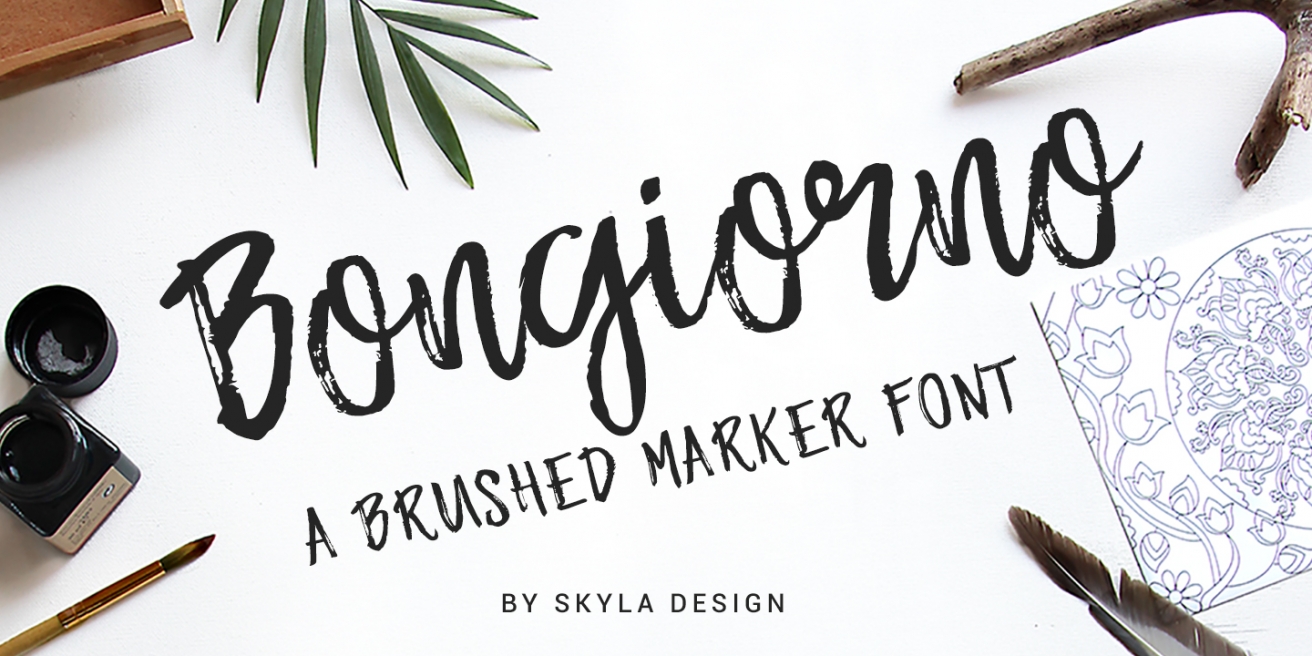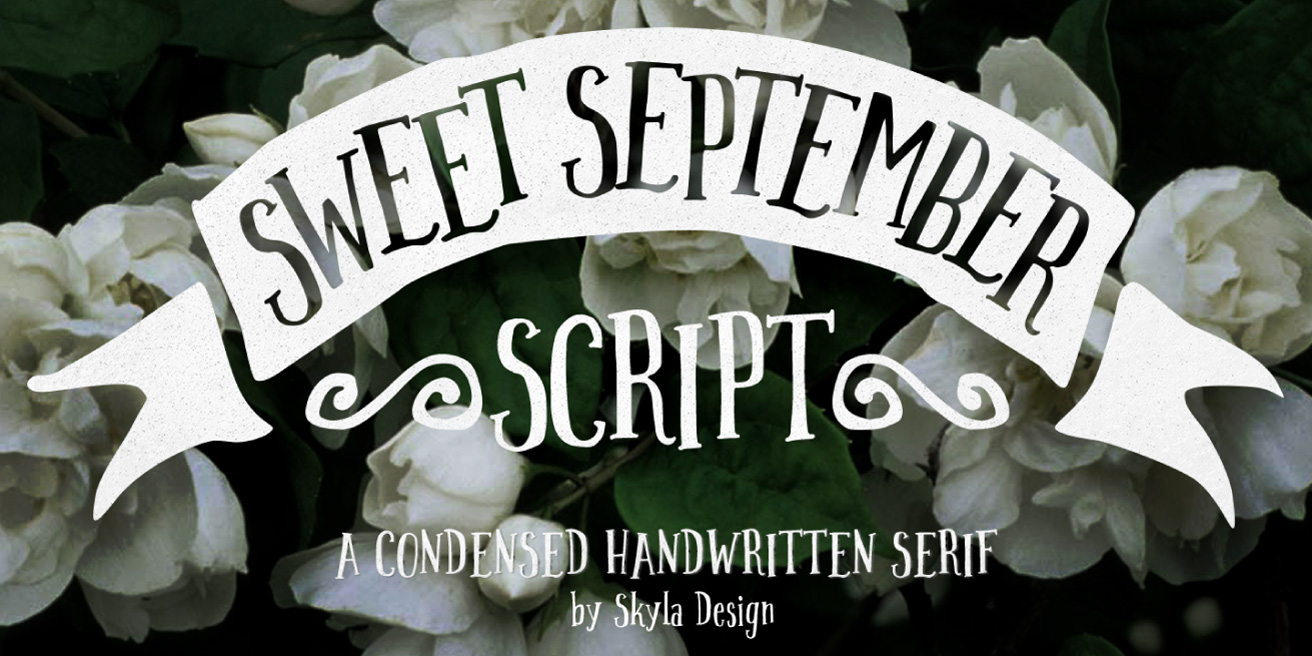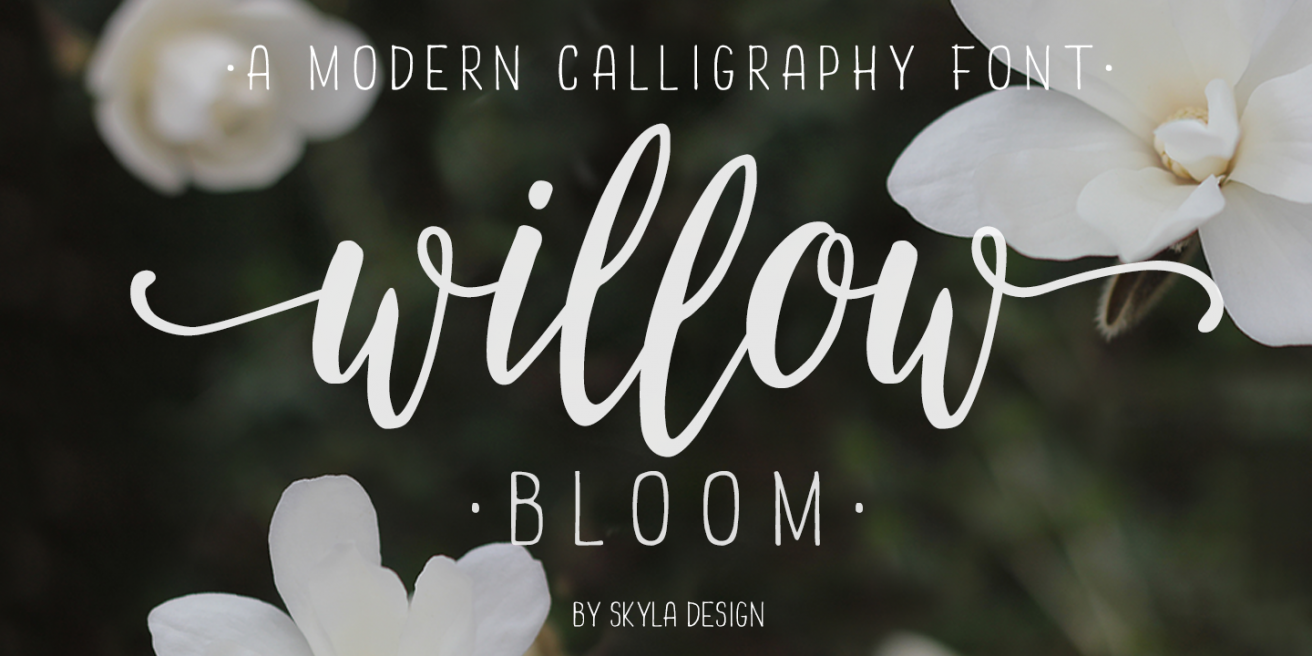
This issue of Fontspring’s Font Faves features four fonts from Skyla Design, one of our newest foundries. Skyla specializes in modern calligraphy and is a natural with a brush (just look at some of her videos on YouTube). We’re happy to welcome her to Fontspring and we think you’ll be happy too after picking up one or more of her great designs.
Bongiorno is a brush script with more texture than the norm, making it stand out and give more of a hand drawn look than many of the neater scripts. Put it anywhere you need to make a statement, it pairs wonderfully with bright colors. |
Sometimes you need that flowing and fun feel that you only get with scripts, but you need things to be a little more legible. This is where Sweet September comes in. Add some funkiness to your designs and capture that handmade feel, all for a very attractive price. |
Yes, there are many modern calligraphies out there, but that’s the same way for many fonts. This one has a more classic cursive feel, easier to read and neater than most of the modern scrips, which is why we prefer it over many others. |
Here’s your crazier modern calligraphy, Olive Sky is for when you need to draw attention with a big bold headline. Add some ink blots to make it look fresh, and you’re on your way to excellent design. |